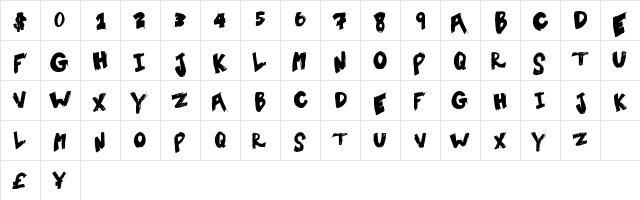
TentSale Regular
Design Context for TentSale Typeface
TentSale is a composed and adaptable typeface that performs quietly and consistently across a wide range of design contexts.